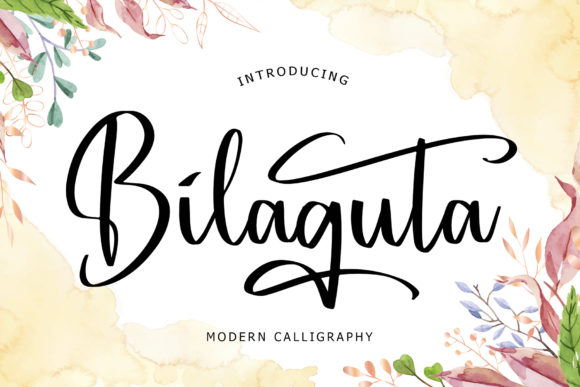
The Designer’s Delight: Bilaguta Font
Have you ever been in the middle of a design project, and suddenly, you’re stuck on finding the perfect font? I recall a recent experience where I was working on a wedding invitation design, and my client requested a font that was both elegant and modern. After hours of searching, I stumbled upon the beautiful Bilaguta font, which instantly elevated my design to the next level. In this article, I’ll share my love for this stunning handwritten font and provide you with a comprehensive guide on how to make the most of it.
A Personal Review: What I Love About Bilaguta
Bilaguta is a gorgeous, modern handwritten font that adds a touch of sophistication to any design project. Here are some things I love about it:
- ✨ Elegant and refined: Bilaguta has a beautiful, flowing script that exudes elegance and poise.
- ✅ Versatile: This font is perfect for a wide range of design projects, from branding and logos to wedding designs, social media posts, and more.
- 💻 PUA encoded: With Bilaguta, you can easily access all the glyphs and swashes, making it a breeze to customize your designs.
While Bilaguta is an amazing font, there are a few minor quirks to be aware of:
- 🤔 Limited character set: As with any font, there might be limitations to the character set, so be sure to check the font’s capabilities before using it for a specific project.
- ⚠️ Overuse: With its elegant style, it’s easy to overuse Bilaguta in a single design. Be mindful of balancing it with other design elements to avoid overwhelming the viewer.
Bilaguta was created with the intention of providing a beautiful, modern handwritten font that would inspire designers to create stunning designs. While I couldn’t find information on the font’s creator, it’s clear that Bilaguta was designed with love and care, making it a wonderful addition to any design project.
| What is Bilaguta font? | Bilaguta is a beautiful, modern handwritten font perfect for adding a touch of elegance to any design project. |